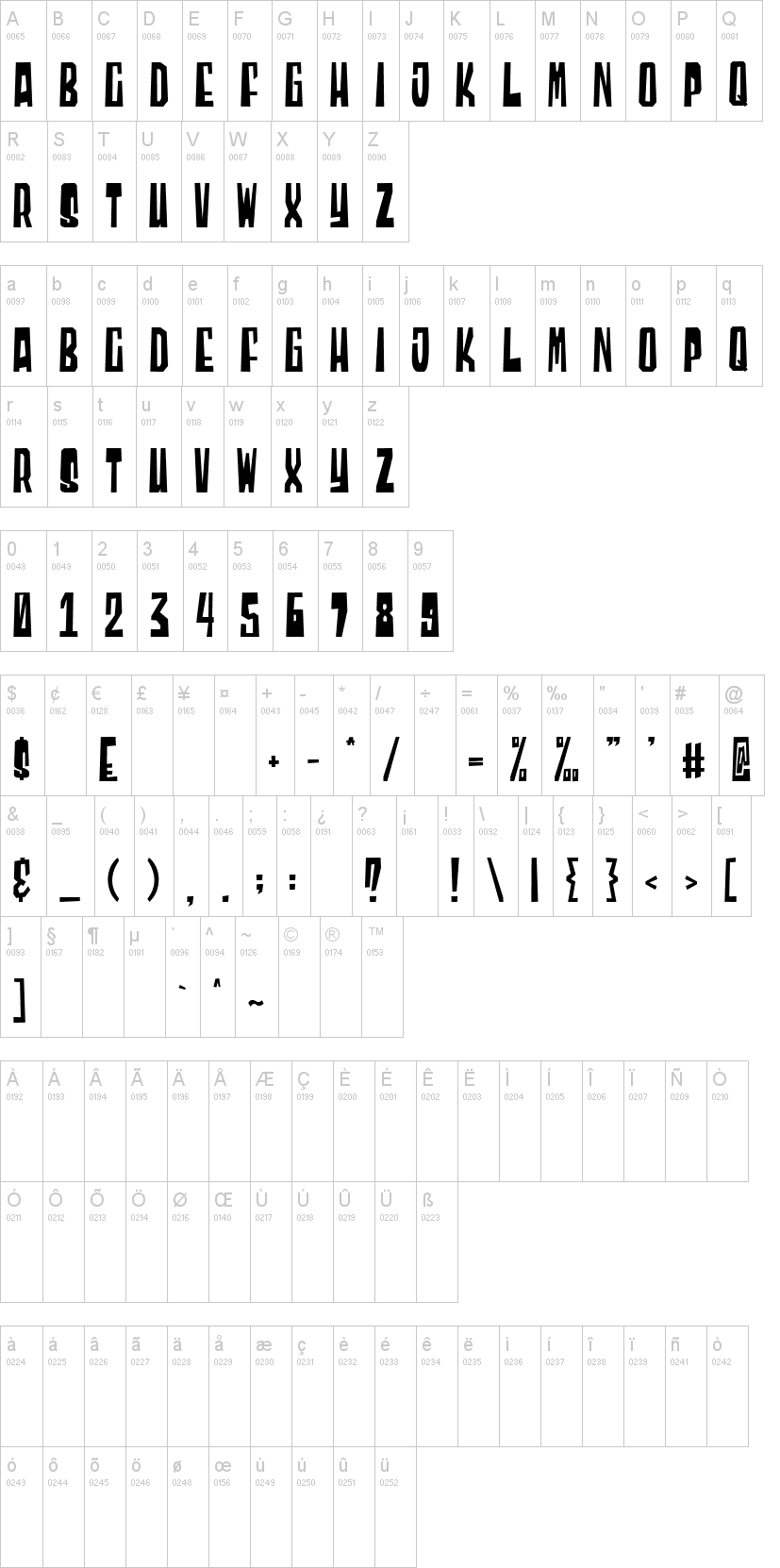
Gives A Playful And Interesting Impression.
Blocky best is a display font with a block style. That's why, when you need a display font to make your message stand out, block font. Fonts all jagged and blocky web pages fonts all jagged and blocky, letters missing, boxes in place of a letter green boxes appear some programs appear ok, but open to.